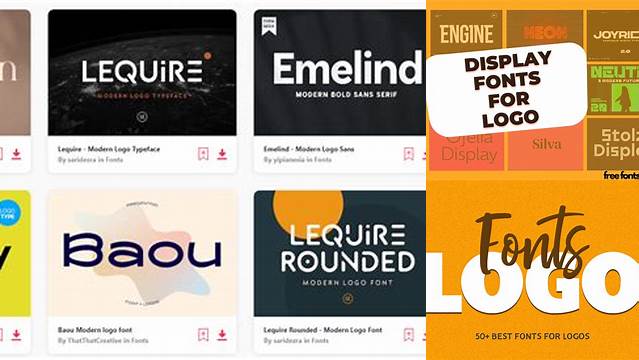
Free Display Fonts For Logos: Your Comprehensive Guide
Looking to create a killer logo but don't want to break the bank? You're in luck! This guide dives deep into the world of free display fonts for logos, helping you find the perfect typography to represent your brand. We'll explore various styles, from bold and modern to elegant and vintage, ensuring you have a font that perfectly captures your brand's personality. Plus, we'll provide tips on how to choose the right font and where to find them legally and safely. Get ready to elevate your logo game without spending a fortune!
Choosing the Right Display Fonts for Your Logo
Choosing the right display font for your logo can feel like a daunting task, guys, but trust me, it doesn't have to be! The most crucial aspect is understanding your brand's identity. What message do you want to convey? Are you aiming for a playful and youthful vibe, or a more sophisticated and professional feel? The font you choose will play a massive role in how your audience perceives your brand. For instance, if you're a tech startup, a clean, geometric sans-serif font might be your best bet, emphasizing modernity and innovation. Conversely, if you're a vintage clothing store, a classic serif font or a stylish script could be a perfect match, evoking a sense of nostalgia and craftsmanship. Before you even think about browsing through fonts, create a mood board that includes images, colors, and adjectives that describe your brand. This will help you narrow down your choices and ensure your font aligns with your overall aesthetic. You need to consider your target audience as well. What kind of fonts do they respond to? Are you catering to a younger demographic who might appreciate bolder, more modern fonts, or an older, more traditional audience who might prefer something more classic? Think about how the font will be used. Will it be used in large sizes on billboards, or small sizes on business cards? Legibility is key, guys. Ensure the font is easily readable at all sizes, avoiding overly ornate or complex fonts that could become difficult to decipher. Lastly, experiment with different font pairings. Don't be afraid to combine display fonts with other fonts, such as a more readable body font. This can create visual interest and help you convey a more comprehensive brand story. You can use free online tools like FontPair to assist you in finding suitable font combinations. So, remember: know your brand, know your audience, prioritize legibility, and don't be afraid to experiment!
Top Free Modern Display Fonts for Logos
Alright, let's dive into some fantastic free modern display fonts for logos! Modern fonts are all about clean lines, simplicity, and a contemporary feel. They're ideal if your brand wants to project a sense of innovation, efficiency, and a forward-thinking approach. One of the most popular choices is Montserrat, a geometric sans-serif font that's incredibly versatile. It's clean, readable, and works well in various applications, from logos to websites to print materials. Next, consider Poppins, another geometric sans-serif that offers a wide range of weights and styles, making it super flexible. Its rounded letterforms give it a friendly and approachable feel, while its clean lines maintain a modern aesthetic. Lato is another excellent option. This sans-serif font is known for its balanced proportions and its semi-rounded details, which provide a touch of warmth. It's a great choice if you want something that's both modern and welcoming. If you're looking for something a bit more unique, check out Raleway. It's an elegant sans-serif font with a thin weight and a slightly condensed style. It's perfect for logos that need a touch of sophistication and a clean, modern edge. For logos that need a bold and impactful statement, Bebas Neue is a good option. It's a tall, condensed sans-serif that works very well in headlines and display sizes. It's free to use and is known for its strong visual presence. Remember to always check the font's license before using it for commercial purposes, even if it's advertised as free. Usually, these fonts are free for both personal and commercial use, but it's always best to be safe than sorry! These are just a few examples, guys. There are many other fantastic free modern fonts out there waiting to be discovered. Explore websites like Google Fonts, Font Squirrel, and DaFont to find even more options! You'll find that these free fonts are a great starting point for developing a logo, and they provide a lot of possibilities to create your brand's identity.
How to Use Modern Display Fonts Effectively
Alright, once you've chosen your modern display fonts for logos, how do you make them shine? The key is to use them effectively. First, keep it simple. Modern fonts thrive on simplicity, so avoid overcrowding your logo with too much text or complex design elements. Use the font in a way that is not only eye-catching but also conveys the essence of your brand. Next, pay attention to spacing. Kerning (the space between individual letters) and tracking (the space between all the letters in a word) can make a huge difference in the readability and aesthetic appeal of your logo. Adjust these settings to ensure your font looks its best. Another critical aspect is color. Modern fonts often look great with bold colors or minimalist palettes. A well-chosen color scheme can help your logo stand out and reinforce your brand's identity. Experiment with different color combinations to find what works best. Consider the context of your logo. Where will it be used? Will it be on a website, business cards, social media, or all of the above? Make sure the font is legible and scalable across all these platforms. Keep in mind, modern fonts also pair well with complementary fonts. For instance, a clean and readable sans-serif display font might be combined with a more elegant serif font for body text. When creating your logo, consider the overall design. How will your chosen font interact with any graphic elements, symbols, or icons? Remember, your logo is an important visual representation of your brand. It should be appealing to your target audience and accurately reflect your brand's values. Therefore, using modern fonts effectively means making sure that you are doing your best in conveying the brand's image.
Elegant Free Display Fonts for Logo Design
For those seeking a touch of sophistication and grace, elegant free display fonts for logo design are a must-have. These fonts often feature beautiful curves, delicate lines, and a timeless appeal. Let's explore some great options! One classic choice is Playfair Display, a high-contrast serif font that exudes elegance and style. Its classic serifs and high x-height make it perfect for logos that convey a sense of luxury and refinement. It's a fantastic choice for brands in the fashion, beauty, or luxury goods industries. Another popular option is Lora, a well-balanced serif font that combines the elegance of a classic serif with a modern touch. Its semi-bold style makes it a good option for logos that need to be both readable and stylish. The subtle curves and elegant design of Lora make it an ideal choice for conveying sophistication. If you're looking for a script font that is free, try Great Vibes, a beautiful, flowing script font that adds a touch of romance and elegance. It's perfect for brands that want to create a more personal and artistic feel. However, be careful with script fonts, and make sure they are legible at smaller sizes. If you want a sans-serif option that’s more elegant, check out Josefin Sans. It has a clean, minimalist design and a sophisticated feel. It's a versatile font that works well for a variety of brands, from fashion to architecture. Remember, it's best to pair these elegant fonts with a more straightforward font for body text, creating a balanced and professional look. Don't be afraid to experiment with different styles, but always ensure that your font choices align with your brand's values and desired image. You should also be mindful of how these elegant fonts will look in different contexts. Make sure your logo will look as good on a business card as it does on a website.
Creating Sophisticated Logos with Elegant Fonts
Creating logos with elegant fonts is an art form. First, the key to success is understanding the specific traits of these fonts. They often have delicate details that need careful attention to ensure your logo's impact. The selection of the right font is key. Choose a font that genuinely reflects the core of your brand and resonates with your target audience. Does the font have beautiful curves? Does it convey a sense of tradition or modernity? Make sure the font perfectly aligns with the core brand message. Consider the overall layout. The visual weight, balance, and composition of the logo are essential. Remember, an elegant logo often relies on simplicity, so avoid overcrowding the design. A minimalist approach with a focus on negative space can be very effective. Experiment with different variations of your logo. Test your logo on various backgrounds, color palettes, and formats to ensure it looks visually stunning in different scenarios. The legibility of the fonts is another important thing. The fonts that you select may have elegant, thin lines, so you need to ensure they look clear and readable, even at smaller sizes. Test the logo on business cards, websites, and social media platforms to make sure it looks good across all channels. When working with elegant fonts, pay special attention to color. The color palette plays a crucial role in reinforcing your brand's identity. Experiment with classic color schemes like gold, black, and white, or explore more modern combinations that reflect your brand's personality. Always make sure the colors work well with the font you have selected. In addition, the pairing of the elegant font with other fonts is important. Select a complementary font for body text or other supporting elements to create balance and visual appeal. Finally, don't be afraid to seek feedback. Show your logo design to other people, collect feedback, and make adjustments accordingly. A second opinion can help you refine your logo and ensure it effectively represents your brand.
Free Vintage Display Fonts for Logos
If you're aiming for a retro or nostalgic feel, free vintage display fonts for logos are the perfect choice. These fonts evoke a sense of history, craftsmanship, and timeless style. They're ideal for brands that want to connect with a sense of tradition and authenticity. ChunkFive, a bold slab serif font, is a popular choice that offers a classic, vintage aesthetic. It's reminiscent of old-school signage and is a fantastic choice for businesses that want to project a sense of strength and reliability. Another great option is Bevan, a bold and impactful slab serif font, perfect for creating a strong visual presence. Its classic design gives it a vintage feel. You can use it for headlines and display text. If you're looking for something a little more decorative, check out Black Jack. It's a playful, vintage-inspired script font that can add a touch of personality to your logo. It's ideal for brands that want to create a more approachable and charming vibe. When selecting a vintage font, guys, consider the era you want to represent. Are you aiming for a 1920s art deco look, a 1950s diner vibe, or something else entirely? The right font will help you achieve that desired effect. Also, remember to be mindful of legibility, especially with script fonts or fonts with intricate details. Always test your logo at different sizes to ensure it remains clear and readable. Experiment with different color palettes. Vintage fonts often pair well with muted or earthy tones. Try using a color palette that complements the font and evokes a sense of nostalgia. Be sure to experiment with various combinations of colors to create the right atmosphere.
Pairing Vintage Fonts with Modern Elements
Pairing vintage fonts with modern elements is a clever way to create a unique and eye-catching logo. It's a method of bridging the gap between nostalgia and contemporary aesthetics. First, begin by selecting a vintage font that aligns with your brand's desired feel. Next, counterbalance it with modern elements, like geometric shapes, minimalist designs, and clean lines. This contrast creates visual interest and prevents the logo from appearing dated. The idea is to blend the past and the present harmoniously. Consider the use of negative space. Modern design principles emphasize white space, and the combination of vintage fonts and negative space creates a visual contrast that is both classic and contemporary. Keep in mind the overall design. The vintage font can be used for the primary wordmark, while a clean, modern sans-serif font can be used for a tagline or supporting text. This approach balances tradition with modernity. Experiment with color. The pairing of vintage fonts with modern color palettes can create a surprising yet appealing effect. Think about using muted vintage colors with a pop of a vibrant, modern shade. Make sure that the colors you use, both vintage and modern, complement each other and reinforce your brand's identity. Incorporate modern graphics. Consider adding simple geometric shapes, abstract patterns, or icons to your logo design. These elements can provide a modern counterpoint to the vintage font and make your logo feel current. Remember, consistency is key. Your logo should be visually consistent across all platforms, from your website to your business cards. When you choose a font, make sure it is consistent with your brand voice. The font should represent your brand's personality. So, to sum up, mixing vintage fonts with modern elements requires careful planning and a willingness to experiment with different approaches, while remaining true to your brand identity.
Best Free Bold Display Fonts for Logos
Need a logo that grabs attention? Free bold display fonts for logos are your secret weapon. These fonts command attention and are perfect for brands that want to project a sense of confidence, strength, and impact. The key is to find a font that is not only bold but also reflects your brand's unique personality. One of the most popular choices is Oswald, a condensed sans-serif font that's perfect for headlines and display text. It's a great choice if you want your logo to be easy to read and make a strong visual statement. Roboto Black is another excellent option. As the name suggests, it's a strong, bold version of the popular Roboto family. It is very suitable for logos that need a strong presence and a modern feel. If you are looking for something a bit more unique, consider Archivo Black. This sans-serif font has a bold and geometric design. It's a great choice for logos that need to stand out and be remembered. If you want to use a slab serif, try Anton. This font is known for its strong and impactful appearance and is very suitable for brands that want to project a sense of authority and confidence. When choosing a bold font, guys, remember that legibility is still essential, so make sure the font is readable, even at smaller sizes. Test your logo on different backgrounds and platforms. Also, consider the use of color. Bold fonts often look great with vibrant colors. Experiment with different color combinations to find the right one for your brand.
How to Use Bold Display Fonts in Logo Design
How to Find and Download Free Fonts Safely